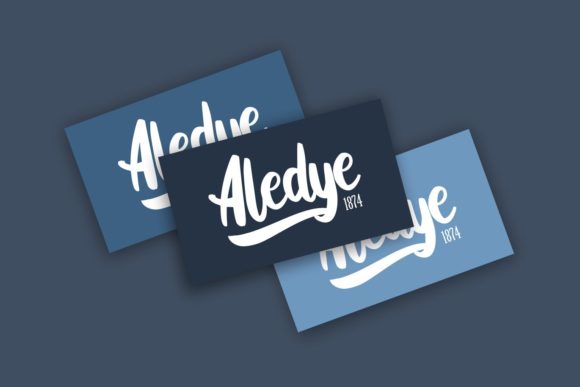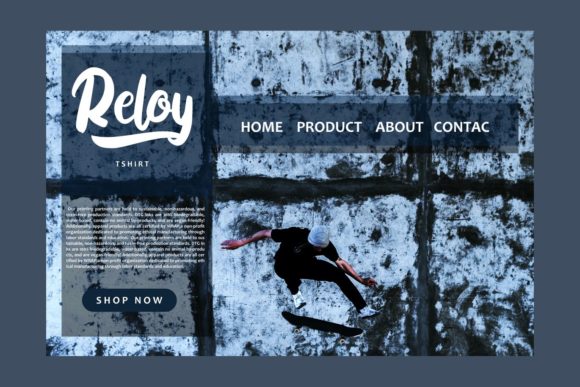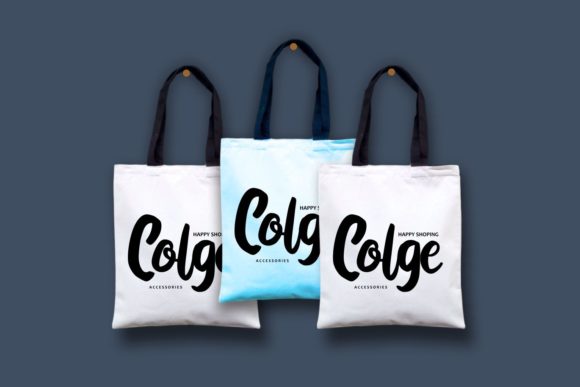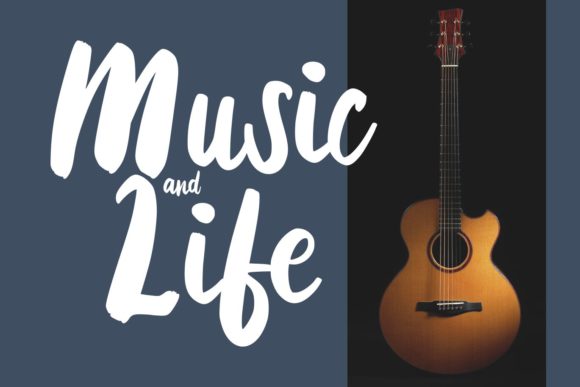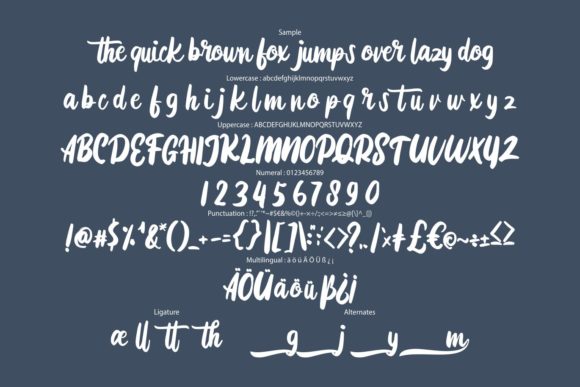
Discover the Elegance of Diotam Font: A Calligraphy Style that Adds a Vintage Touch to Your Crafting Projects
Are you a designer or crafter looking for a unique and elegant font to add a touch of sophistication to your projects? Look no further than Diotam Font, a beautiful calligraphy style font that is sure to impress. With its classic and timeless design, Diotam Font is the perfect choice for anyone looking to add a vintage touch to their crafting projects.
What is Diotam Font?
Diotam Font is a stunning calligraphy style font that is inspired by traditional handwriting techniques. Its elegant and flowing lines make it perfect for a variety of crafting projects, from handmade cards and invitations to scrapbooking and journaling. The font is designed to resemble handwriting, with subtle variations in line width and texture that give it a organic and natural look.
Characteristics of Diotam Font
So, what makes Diotam Font so special? Here are just a few of its key characteristics:
- Calligraphy style: Diotam Font is a true calligraphy style font, with elegant and flowing lines that are reminiscent of traditional handwriting.
- Vintage feel: The font has a distinctly vintage feel, making it perfect for crafting projects that require a touch of nostalgia and elegance.
- Handwritten look: Diotam Font is designed to resemble handwriting, with subtle variations in line width and texture that give it a organic and natural look.
- Highly versatile: The font is highly versatile, making it suitable for a wide range of crafting projects, from handmade cards and invitations to scrapbooking and journaling.
Uses for Diotam Font
So, what can you use Diotam Font for? The possibilities are endless! Here are just a few ideas to get you started:
- Handmade cards and invitations: Add a touch of elegance to your handmade cards and invitations with Diotam Font.
- Scrapbooking and journaling: Use Diotam Font to add a vintage touch to your scrapbooking and journaling projects.
- Wedding and event planning: Diotam Font is perfect for wedding and event planning, adding a touch of sophistication and elegance to your stationery and decor.
- Graphic design: The font is also suitable for graphic design projects, such as logo design, branding, and advertising.
Tips for Using Diotam Font
Here are a few tips for using Diotam Font in your crafting projects:
- Pair with other fonts: Experiment with pairing Diotam Font with other fonts to create a unique and interesting look.
- Use in combination with images: Use Diotam Font in combination with images to add a touch of elegance and sophistication to your projects.
- Experiment with colors: Don’t be afraid to experiment with different colors and textures to add depth and interest to your projects.
In conclusion, Diotam Font is a beautiful calligraphy style font that is sure to add a touch of elegance and sophistication to any crafting project. With its classic and timeless design, Diotam Font is the perfect choice for designers and crafters looking to add a vintage touch to their work. Whether you’re creating handmade cards and invitations, scrapbooking and journaling, or working on a graphic design project, Diotam Font is a versatile and highly usable font that is sure to impress.